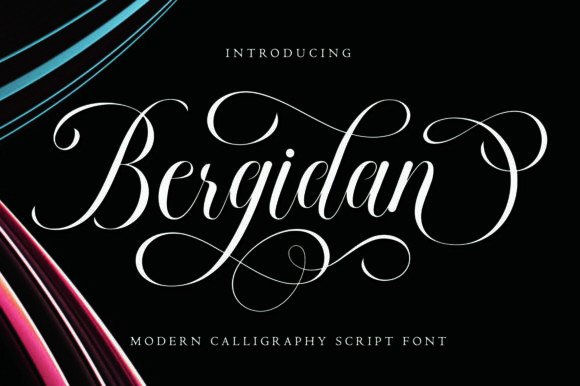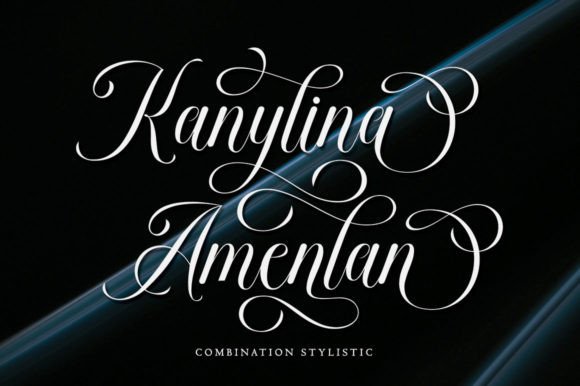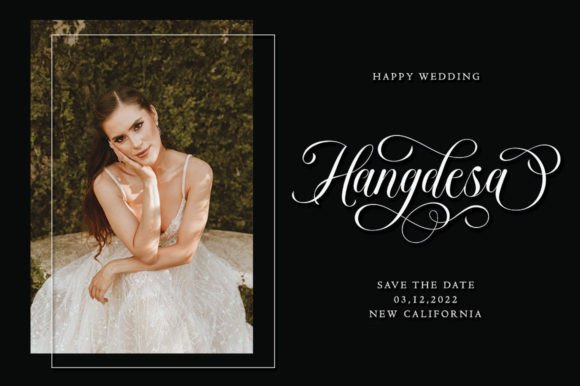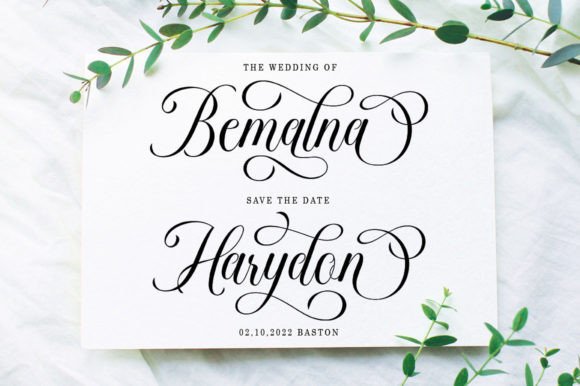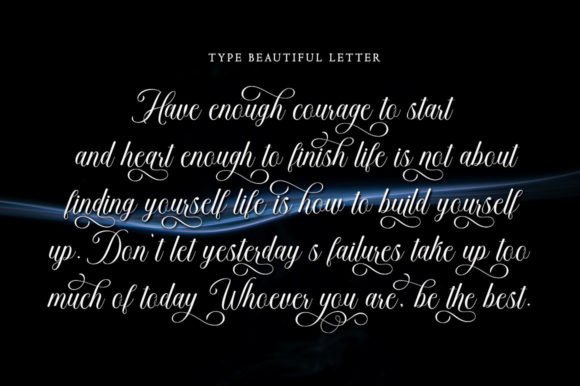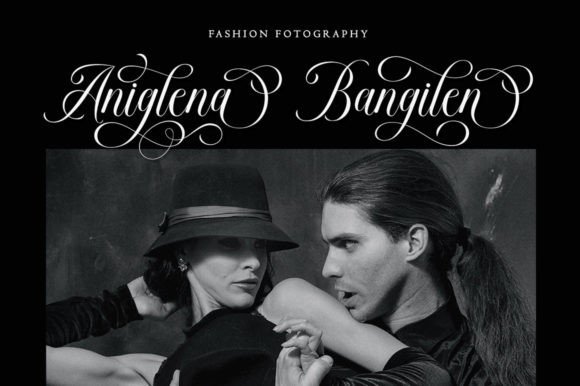
About Bergidan Font
The Bergidan font is a stunningly elegant handwritten typeface that blends modern style with timeless sophistication. Designed to captivate with its sleek lines and luxurious character connections, this font is perfect for adding a classy, feminine touch to your most refined design projects.
Whether you’re working on high-end branding, fashion labels, or elegant invitations, Bergidan adds that unmistakable air of glamour. It’s not only beautiful—it’s practical, too. The font remains clear, legible, and easy to use across both print and digital platforms.
Graceful, Stylish, and Readable
What sets Bergidan apart is its perfect balance between beauty and functionality. Each letter features gentle curves, refined swashes, and elegant ligatures. The font was expertly designed to ensure seamless letter connections, making every word appear gracefully handwritten.
Despite its decorative quality, Bergidan font remains highly readable. This makes it suitable not only for headlines and names but also for slightly longer text sections when used thoughtfully. The PUA encoding ensures that all alternate glyphs and swashes are easily accessible, even without special design software.
Perfect for Luxury and Formal Projects
This font’s high-class feel makes it a great fit for a variety of uses, especially in premium and romantic design settings. You can confidently use Bergidan in:
Wedding invitations and greeting cards
Fashion and beauty branding
Restaurant menus and boutique packaging
Magazine titles and blog headers
Labels, logos, book covers, and editorial layouts
Its clean yet sensual curves help communicate elegance, making your work feel exclusive and carefully crafted.
Elevate Your Brand with Sophistication
If you want to make a strong visual impact while preserving class and femininity, the Bergidan font is a perfect choice. It speaks the language of luxury and love, making it ideal for upscale branding or heartfelt personal projects.